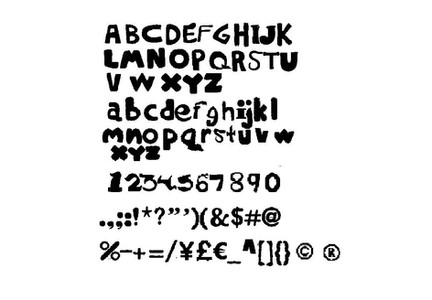
This is the first Open Comic Font.I decided to build a new comic book font because I don't like the restrictions on some of the commercial ones out there. This one is free to use for any purpose.
Version 0.03.2
Hi Arthur, I have been trying to add some extra characters to the font using font forge. I seem to be having problems doing so, Is there a way I can submit new characters to say the github page?
Dude, can you make something closer to standard comics dialogue font like those found on your favorite X-Men or JLA books? It'll make you famous I swear
ok now i have made the characters...
going to upload not..
Awesome work! Can I merge this into the official build? If so, how would you like to be credited?
mk, do at you like!
my name Gustav Hartvigsson, as a contributor, some ware, would do
em, i got one problem with these fonts, there is no "ÅÄÖ" and German users may want "Ü" to..